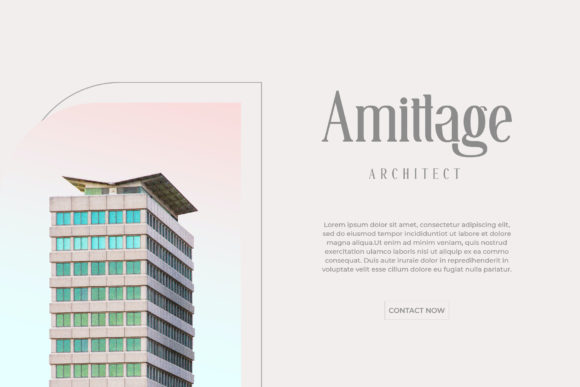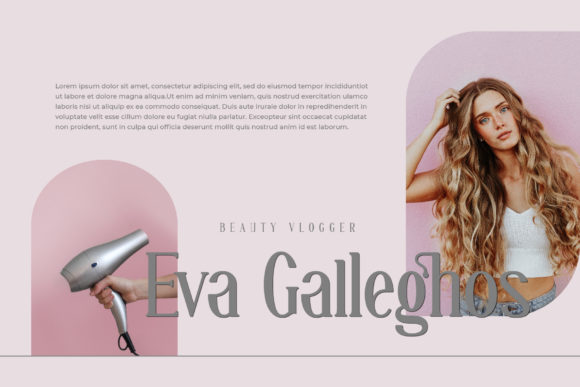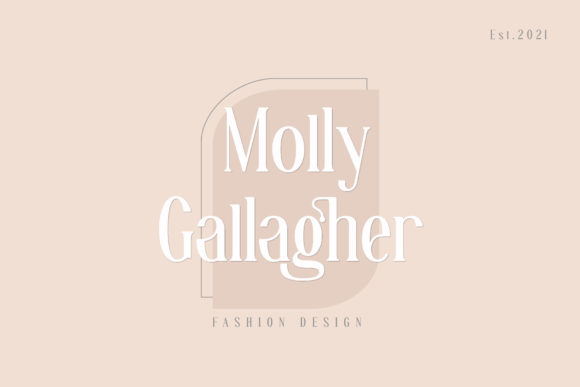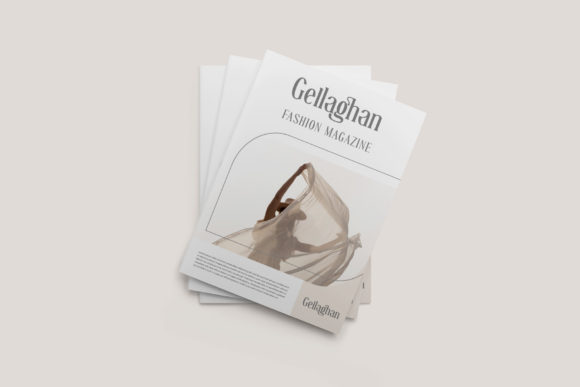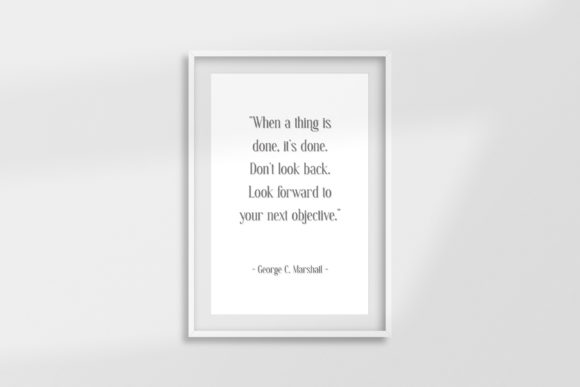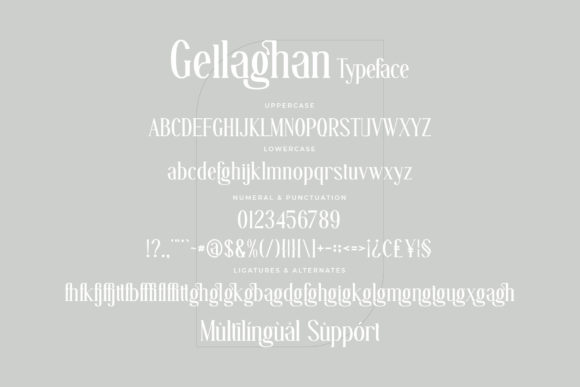
Unleash Your Creativity with Gellaghan Font
As a designer, have you ever stumbled upon that perfect font that sparks an idea and sets your creative juices flowing? For me, it was the moment I discovered Gellaghan Font. Its modern and elegant serif style instantly captivated me, and I knew I had to learn more. Gellaghan Font is a versatile and sophisticated typeface designed to elevate your designs to the next level.
With its PUA encoding, you can easily access all the glyphs and swashes, giving you endless possibilities to experiment and create unique designs. Whether you’re working on a branding project, a magazine layout, or a wedding invitation, Gellaghan Font is the perfect companion to bring your vision to life. Its value lies in its ability to add a touch of sophistication and elegance to any design, making it a must-have for any serious designer.
Gellaghan Font Key Features
- Font Family: Gellaghan comes in two font families – Regular and Bold, with each family including a wide range of characters, including uppercase and lowercase letters, numbers, and punctuation.
- Character Set: Supports over 250 characters, including Latin, Cyrillic, and Greek alphabets, as well as various symbols and punctuation marks.
- Unique Characteristics: Gellaghan font features a unique blend of modern and vintage elements, with a distinctive rounded edge and subtle texture, giving it a distinctive and eye-catching appearance.
Gellaghan Font Review
Gellaghan Font is a visually appealing font that can add a touch of elegance to your designs. I was impressed by its ✨ sleek lines and modern aesthetic, making it suitable for a wide range of applications, from corporate branding to digital product design.
Here are some of the things that I like about Gellaghan Font:
- ✨ Elegant and sophisticated design that stands out in digital and print media.
- ✨ Highly legible, even at small font sizes, making it ideal for body text and headings.
- ✨ Supports a wide range of languages, making it a great choice for global brands and organizations.
- ✨ Available in various weights and styles, allowing for flexibility in design.
- ⚠️ Gellaghan Font may not be the best choice for bold, statement-making headlines, as it can appear somewhat generic.
- ⚠️ The font may not be as effective for text-heavy designs, as it can become overwhelming when used extensively.
Overall, Gellaghan Font is a solid choice for designers looking for a clean and modern font. While it may have some limitations, its versatility and elegance make it a great addition to any design toolkit.
The Gellaghan font is a great choice for creative and artistic designs, such as:
- Invitations and event promotions
- Infographics and data visualization
- Editorial and creative content
Alternatives to Gellaghan Font for Designers
Montserrat is a modern sans-serif font designed by Julieta Ulanovsky. It’s perfect for digital products, logos, and titles due to its clean and minimalist design. Montserrat is more geometric and has a stronger x-height compared to Gellaghan Font, making it suitable for a wider range of applications.
Avenir is a geometric sans-serif font designed by Adrian Frutiger. It’s ideal for titles, headings, and any text that requires a touch of sophistication. Avenir has a more dramatic flair compared to Gellaghan Font and is better suited for high-end designs or luxury brands.
Open Sans is a clean and modern sans-serif font designed by Steve Matteson. It’s perfect for body text, as it’s highly legible and easy to read. Open Sans is more rounded and friendly compared to Gellaghan Font, making it suitable for a wide range of applications, from digital products to print materials.
Inter is a modern sans-serif font designed by Rasmus Andersson. It’s perfect for digital products, logos, and titles due to its clean and minimalist design. Inter has a more condensed and neutral feel compared to Gellaghan Font, making it suitable for a wide range of applications, from technology to finance.
Q: Is the Gellaghan Font available in different weights and styles?
Yes, the Gellaghan Font family includes a range of weights and styles, including Light, Regular, Medium, Bold, and Italic. Each weight and style is carefully crafted to provide a cohesive and professional look for your designs.